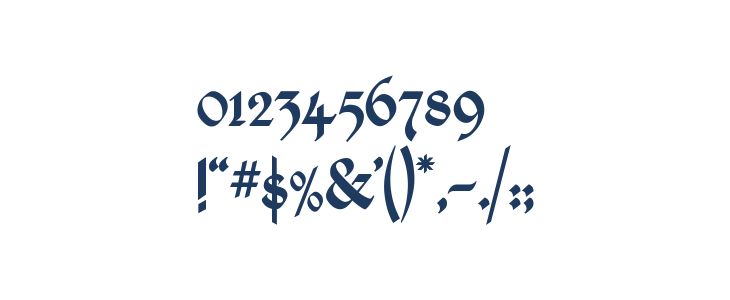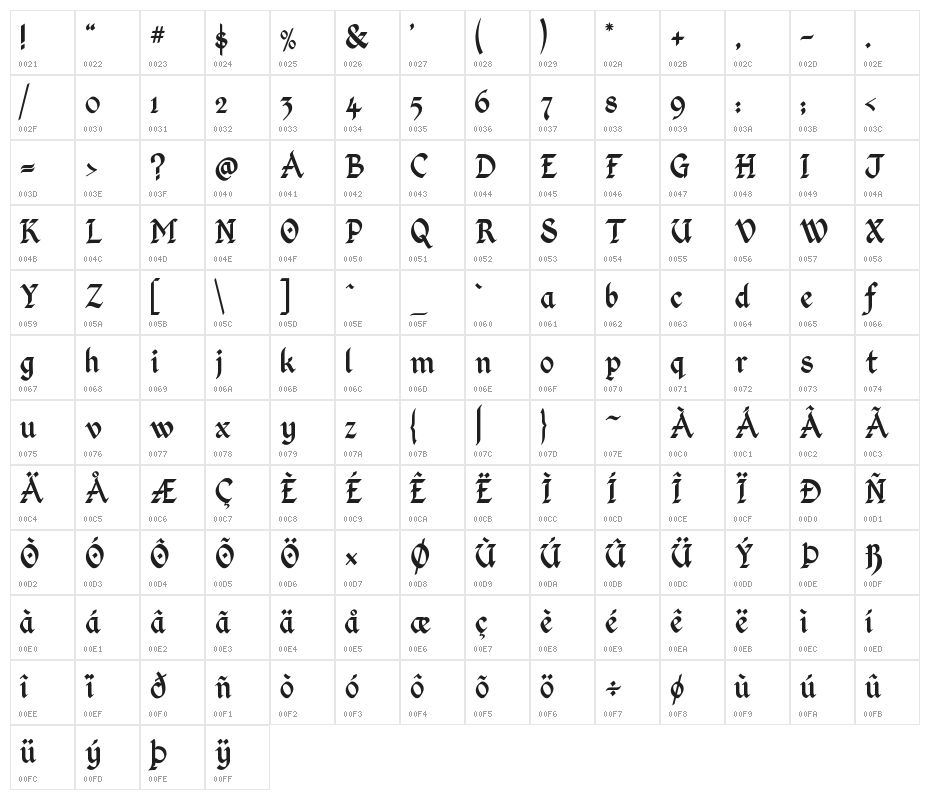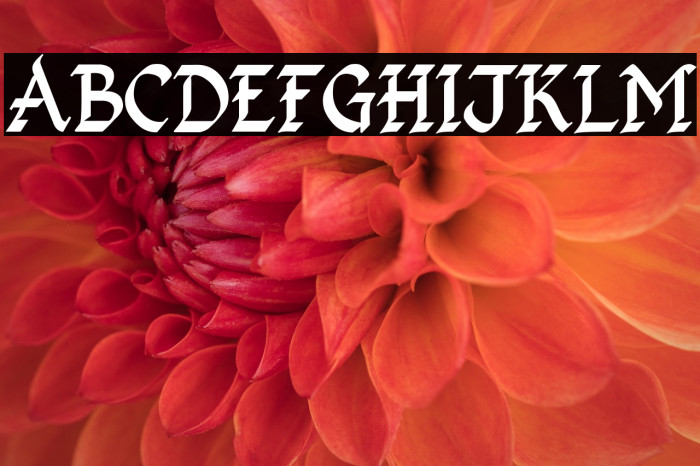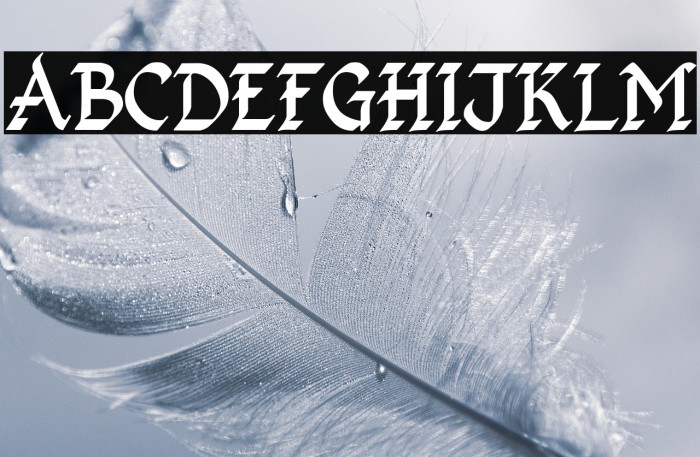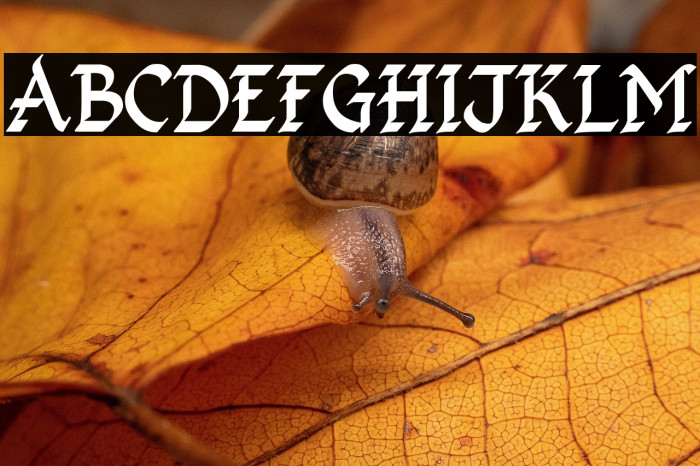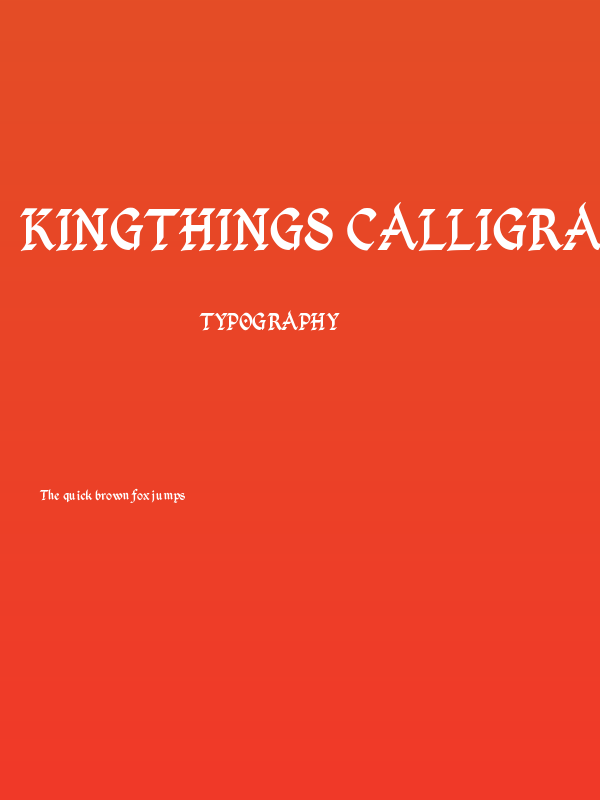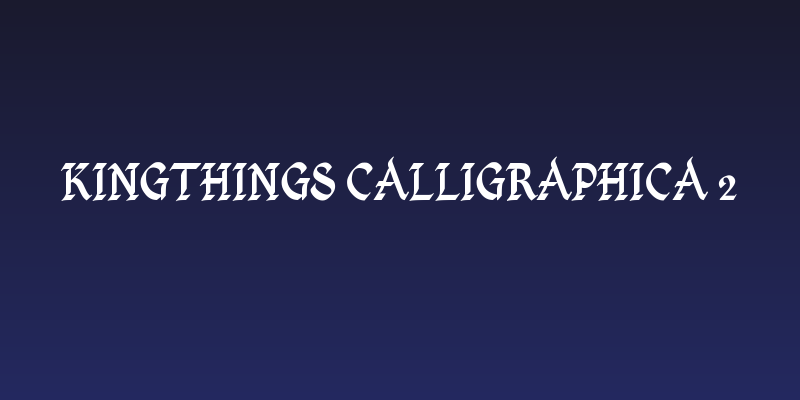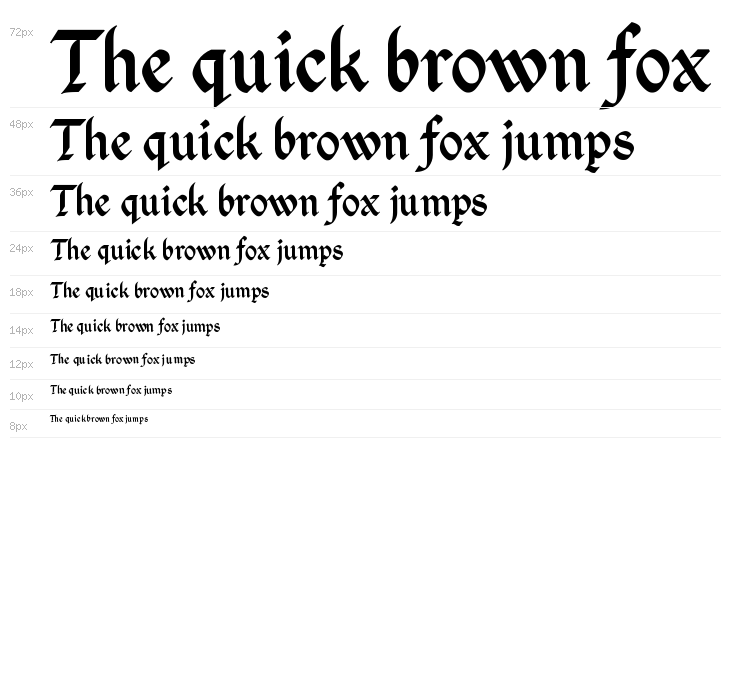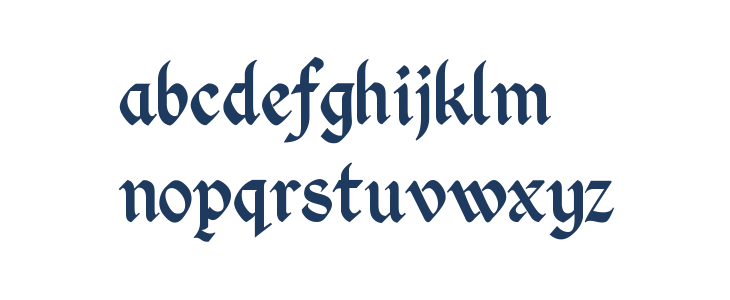
Kingthings Calligraphica 2 Font
Kingthings Calligraphica 2 Description
This font exhibits a distinct calligraphic style with a strong medieval influence. The characters are bold and angular, featuring sharp serifs and a dynamic flow that mimics traditional calligraphy. The uppercase letters are particularly ornate, with sweeping curves and pointed edges that give them a dramatic appearance. The lowercase letters maintain a consistent style, offering a harmonious balance between elegance and readability. Numbers and special characters are designed to match the overall aesthetic, ensuring a cohesive look across all text elements. This font is ideal for projects that require a touch of historical or fantasy flair.
| Use Case | Headlines, Logos, Decorative text |
| Proposed Projects | Ideal for fantasy book covers, historical event invitations, or themed restaurant menus. |